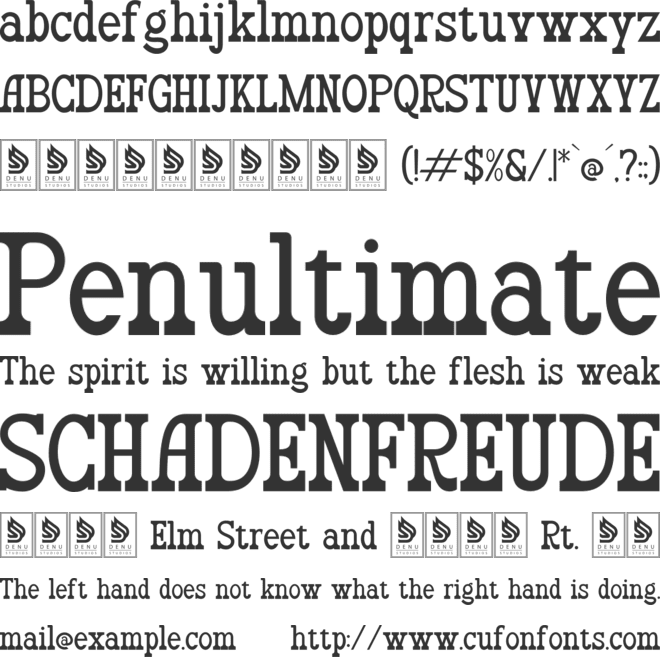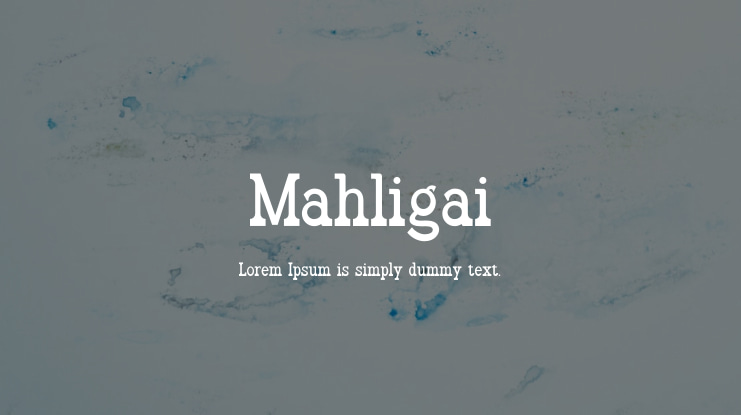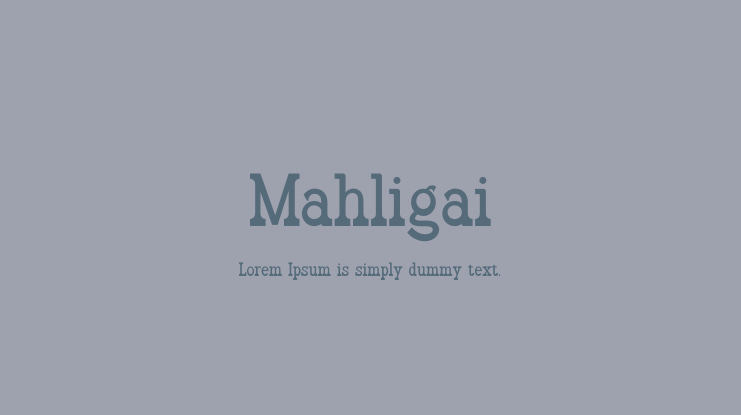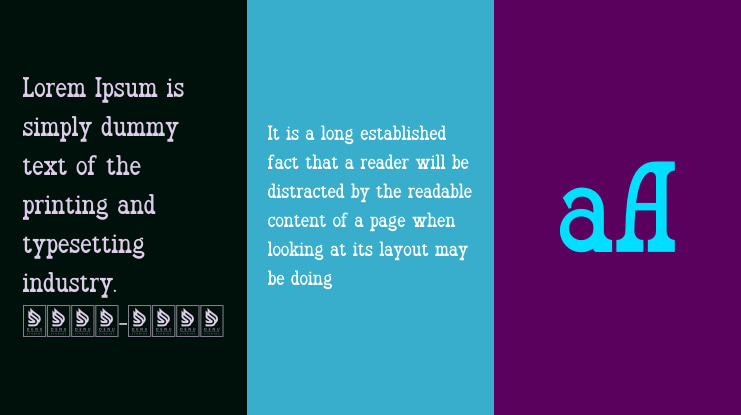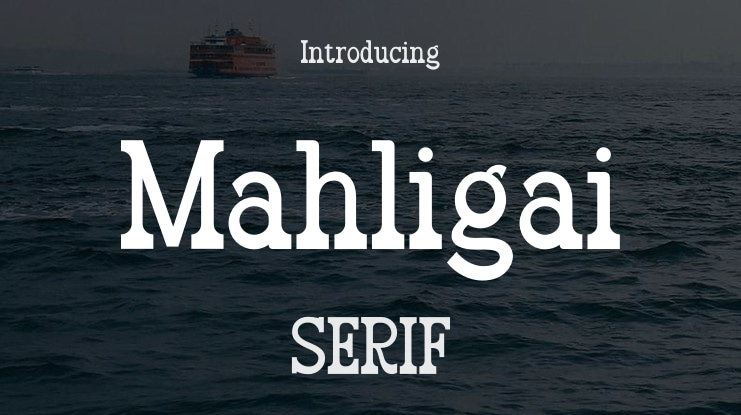
Enhance the style of your projects with Mahligai | Retro Slab Serif, a versatile font perfect for a variety of uses including logos, branding, packaging, quotes, posters, and more that crave a Retro Slab Serif aesthetic.